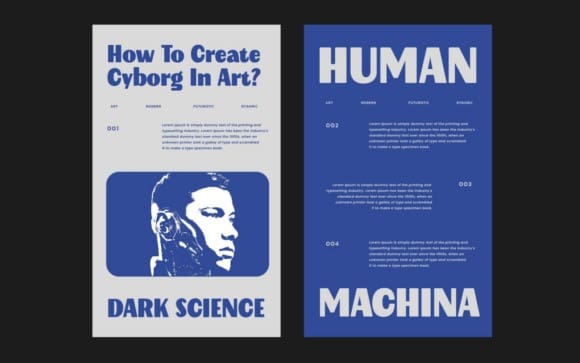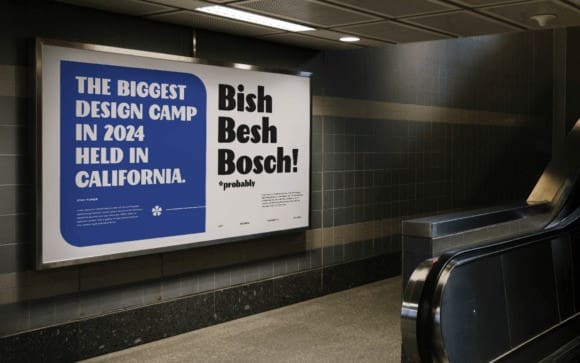
Night Shift Font
Night Shift Font, a captivating display sans serif font that commands attention. Designed with two distinct styles, it’s perfect for branding, editorial projects, posters, or any design that needs a contemporary edge. Its clean, geometric forms make it versatile for both creative and professional use, creating a striking balance between sophistication and style.